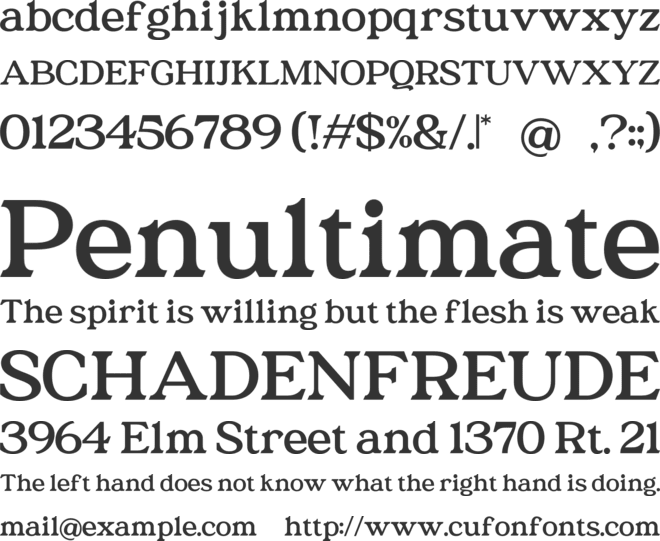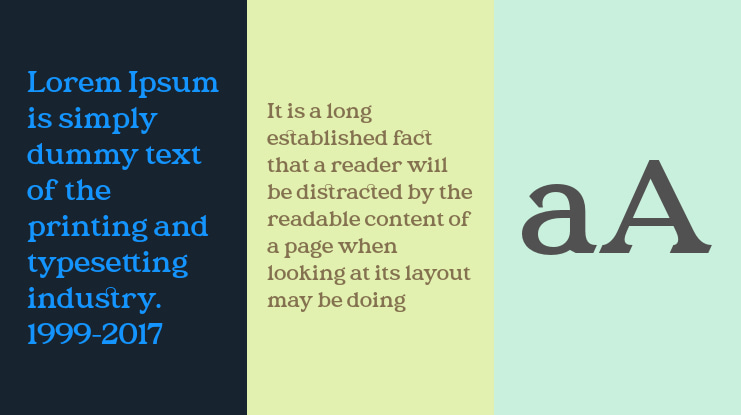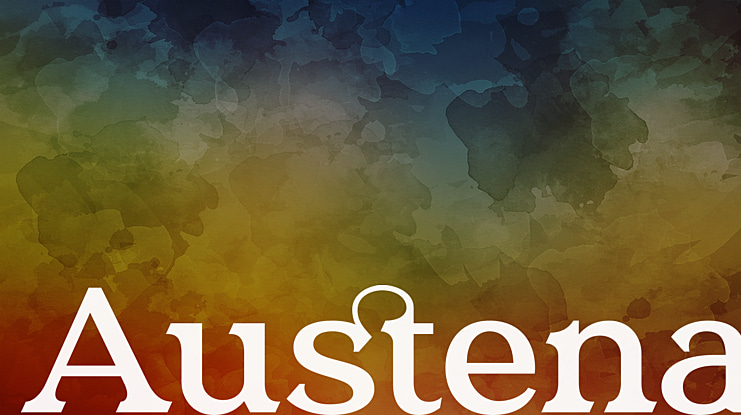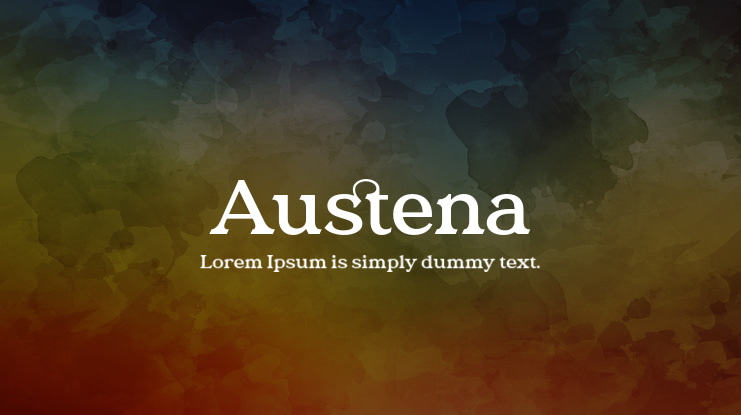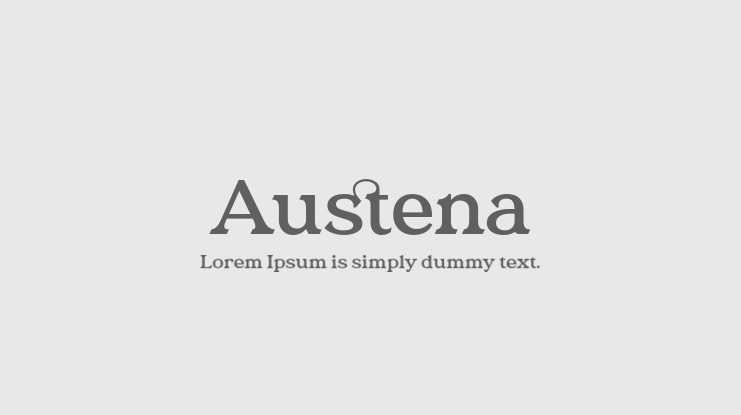
Austena Font
This is a modern branding serif typeface created by BrandSemut with a stylish script alternates. Austena is a modern and stylish typeface, best used as a display for headings, logos, branding, magazines, product packaging and invitations. Austena come with clean lines and smooth curves give any project an extra touch of class.